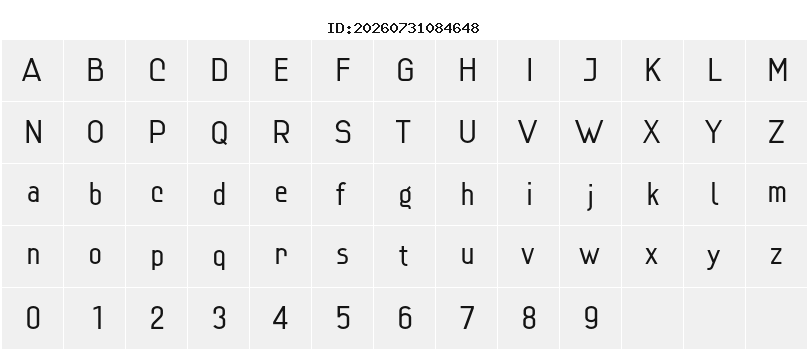
Lindau Preview
• Font Name: Lindau
• Font Style: Light
• Designer: Markus Waeger
About Lindau.otf
Lindau.otf is a modern, elegant sans-serif font designed for ultimate readability and visual harmony. Perfect for branding, headlines, web design, and print materials.